Food Logo Fonts: Powerful Picks for Hungry Brands
Choosing the best food logo fonts is not only a matter of style. It is a branding decision that affects how people understand a restaurant, cafe, bakery, food truck, or packaged food product before they ever taste anything.
That is one of the things I like about typography. It works quietly, but it changes perception very quickly.
Think about a cozy cafe window, a burger shop sign, or a bakery box sitting on a counter. Before the customer smells the coffee, sees the menu, or tastes the pastry, they usually notice the name. And the name is not neutral. The typeface gives it a voice.
A chunky font can make a burger brand feel loud, casual, and satisfying. A delicate script can make a cake business feel handmade and personal. A refined serif can make a chocolate brand feel premium before the packaging is even opened.
Fonts speak before the food does.
For food businesses, the logo is often the first point of contact. A good food logo font can make a brand feel fresh, rustic, playful, trustworthy, premium, nostalgic, or modern within seconds. That matters because food is emotional. People are not only buying meals. They are buying comfort, cravings, convenience, celebration, memory, and habit.
A handwritten logo might suggest care. A bold sans serif might suggest speed and appetite. A high-contrast serif might suggest quality and a slower, more considered dining experience.
The difficult part is that food branding fonts have to do more than look attractive. They need to work. A font can look lovely on a mood board and then fall apart on a storefront sign, delivery app icon, sauce bottle, napkin, menu, or small food label.
That is why the best fonts for food business branding are rarely chosen just because they are trendy. They are chosen because they fit the business, communicate the right feeling, and stay readable across the places where the brand actually appears.
In food branding, the wrong font can make a premium restaurant look cheap, a homemade food brand look unpolished, or a fun snack brand feel forgettable. The right font becomes part of the brand’s flavor.
1. Handwritten Fonts for Warm, Homemade Food Brands
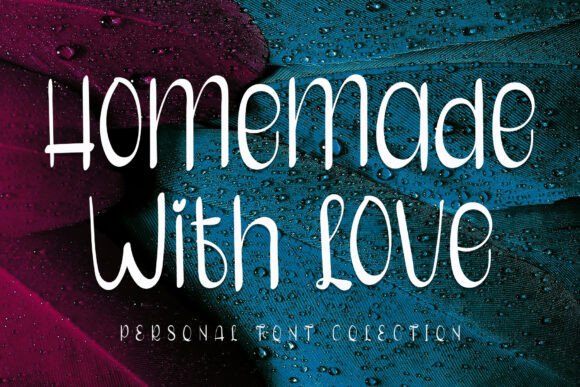
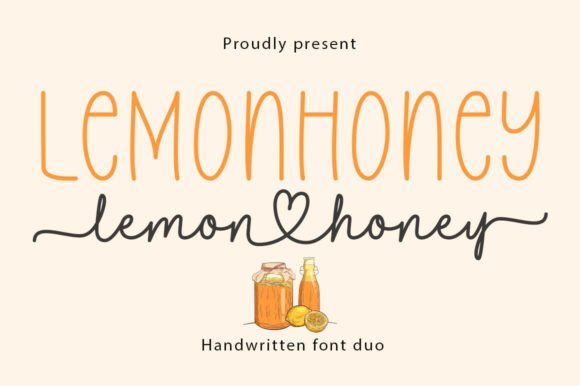
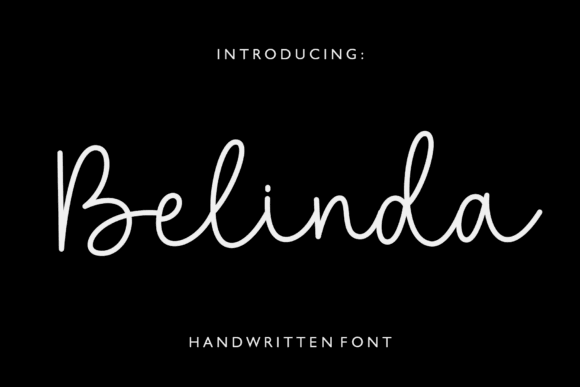
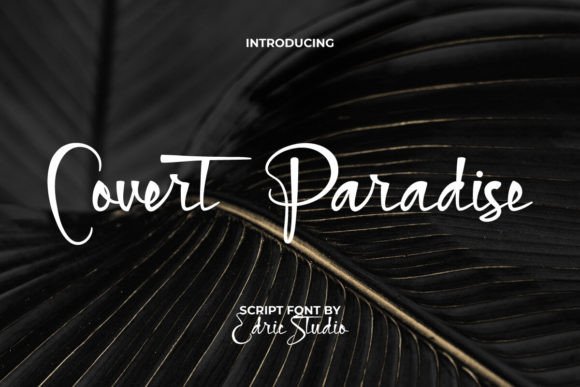
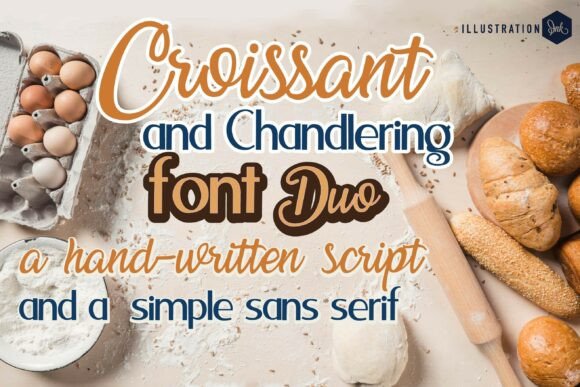
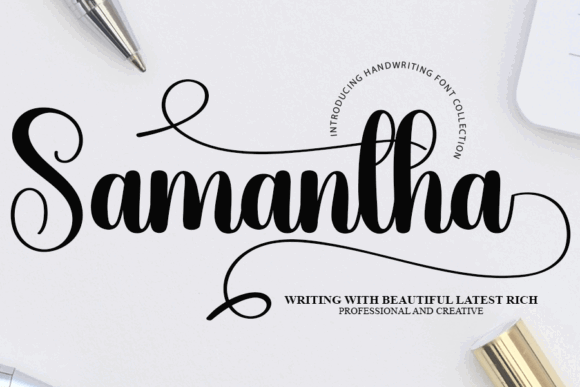
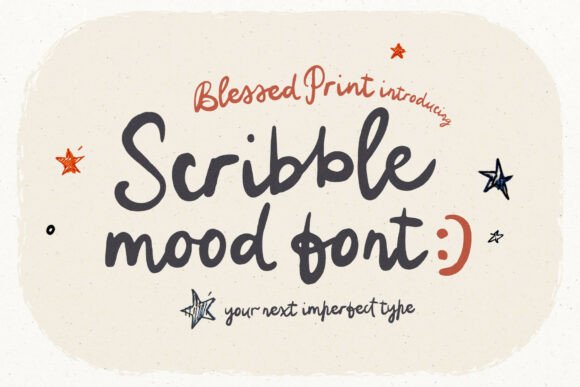
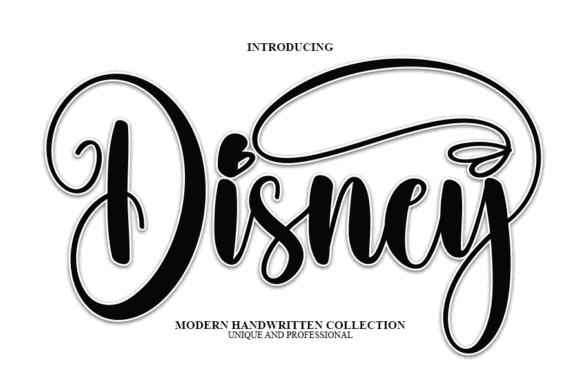
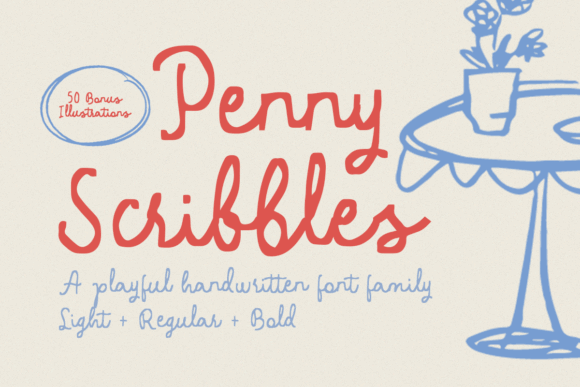
Handwritten fonts for food logo design are popular because they feel human.
They suggest care, craft, and personality, which makes them useful for homemade food businesses, local bakeries, cake brands, dessert shops, jam makers, meal-prep kitchens, catering services, and cozy cafes.
A handwritten font can make a logo feel like a note from the owner rather than a mark from a large company. That warmth can be powerful when the business story involves family recipes, small-batch production, handmade ingredients, or local community roots.
The best handwritten food fonts are expressive but controlled.
You want the letterforms to feel natural, not messy. A strong script or casual handwritten font should have rhythm, spacing, and enough clarity for customers to read the name quickly.
For a homemade food logo, slightly imperfect letters can be charming because they make the brand feel more personal. But there is a line between handmade and hard to read.
If the strokes are too thin, the loops too dramatic, or the letters too tightly connected, the logo may become weak on packaging, stickers, or social media icons.
Good handwritten font ideas for food branding include casual brush scripts, soft marker-style fonts, relaxed monoline scripts, and friendly hand-lettered display fonts.
These can be especially useful for cake business logo fonts, cupcake logo fonts, dessert brand fonts, and pastry shop logo fonts because they create a sweet, personal mood.
For a cozy cafe, a handwritten font can feel like chalk on a menu board or a barista’s note on a cup. For a handmade sauce or spice brand, it can suggest local production and small-batch care.
The key is to pair the handwritten font with simple supporting typography so the identity does not become too busy.
2. Bold Fonts for Fast Food, Burgers, Pizza, and Street Food
Bold fonts for food logo design are built for appetite and attention.
They suit fast food, food trucks, burger restaurants, pizza shops, taco stands, fried chicken brands, and street food concepts because they feel immediate and energetic.
A bold font has visual weight. That matters when your logo has to compete with traffic, crowds, menu boards, delivery app listings, and social media feeds.
Thick letters are easier to read from a distance, easier to print on packaging, and easier to remember after a quick glance.
What fonts are best for bakery and dessert logos?
Bakery and dessert logos typically perform best with handwritten scripts, elegant serif fonts, soft display fonts, and playful rounded typography that communicates warmth, sweetness, and craftsmanship.
How do I choose a font for restaurant branding?
Start by identifying your restaurant's cuisine, atmosphere, target audience, and price level. Then select typography that reflects those characteristics while remaining readable in menus, signs, apps, and social media profiles.